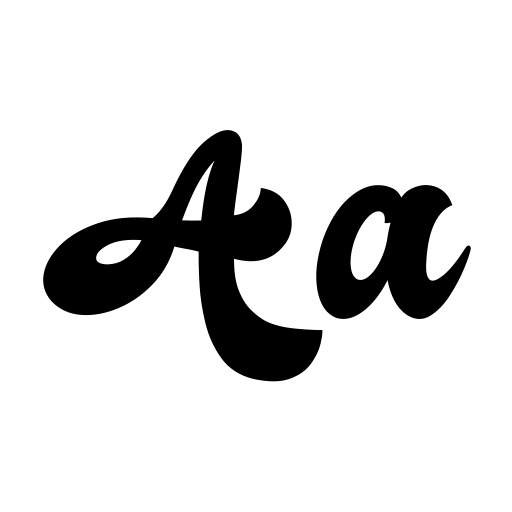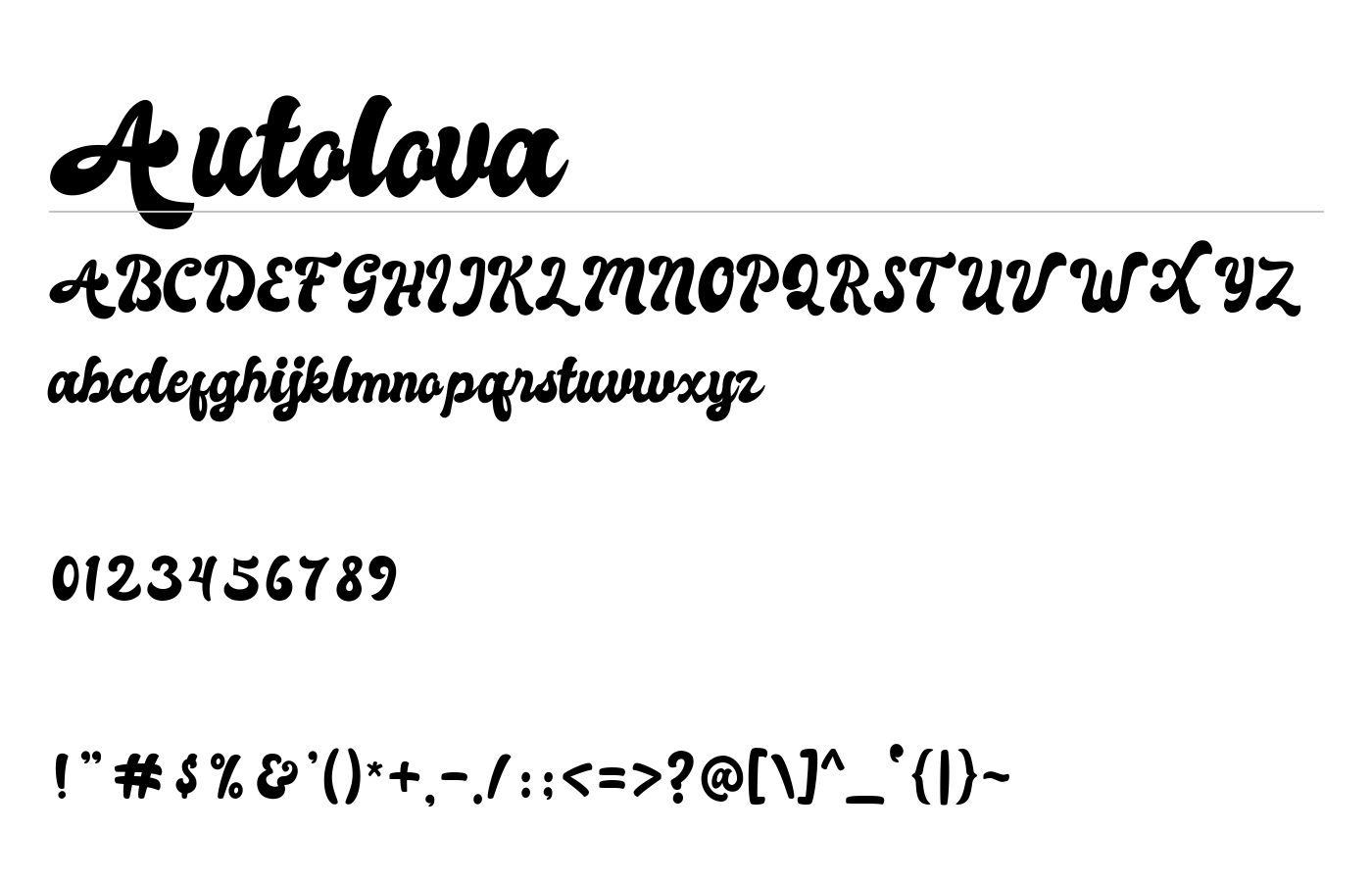
Autolova is a bold, script-style font with a smooth, rounded stroke that gives it a playful and friendly character. Its connected letterforms and moderate contrast make it ideal for eye-catching logos, packaging, and headlines where a warm, inviting feel is desired. This font works best in creative, casual branding and designs that seek to convey approachability and charm.
Autolova Font
About Autolova Font
| Designer | Rudhi Sasmito 2018 |